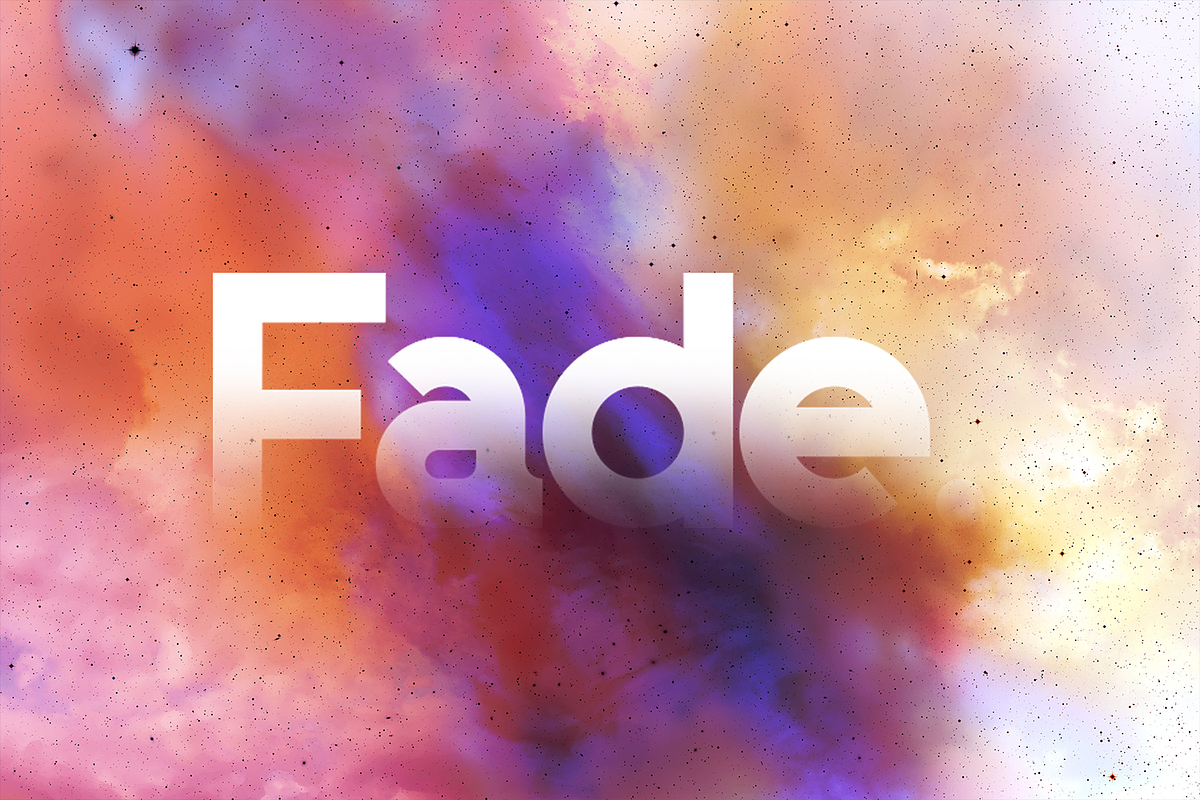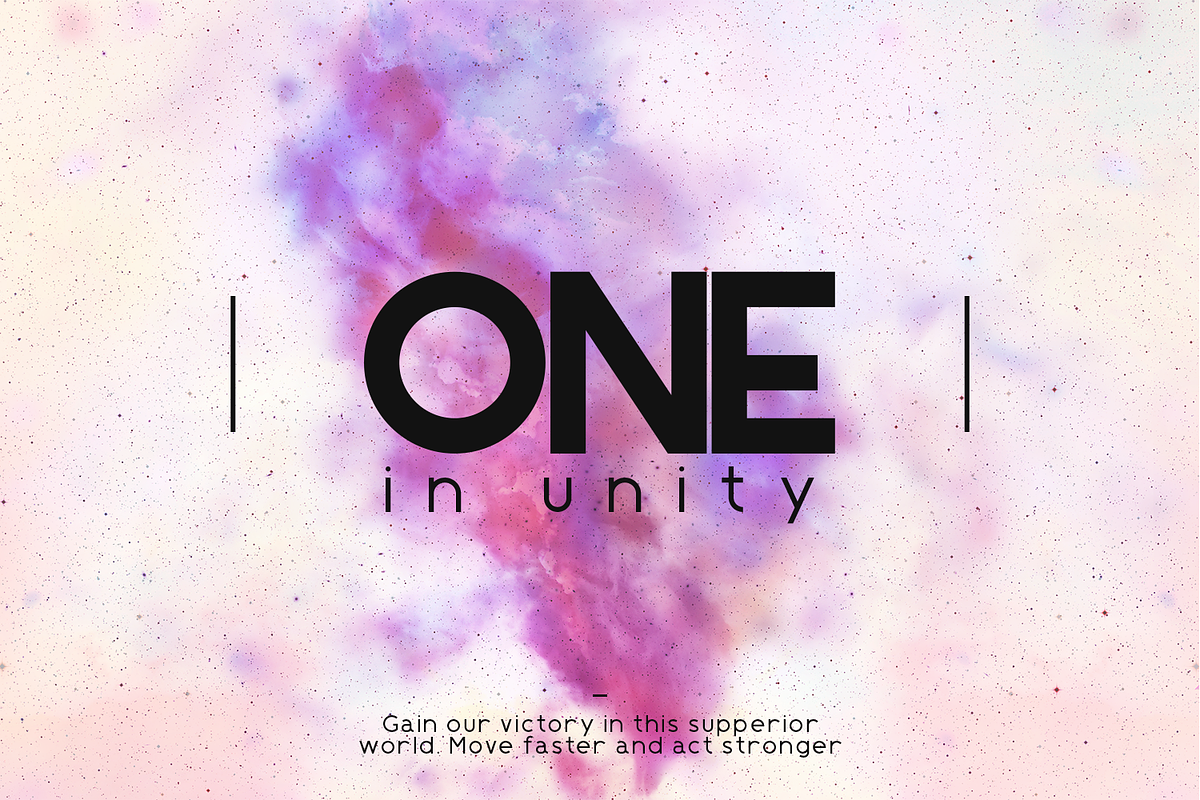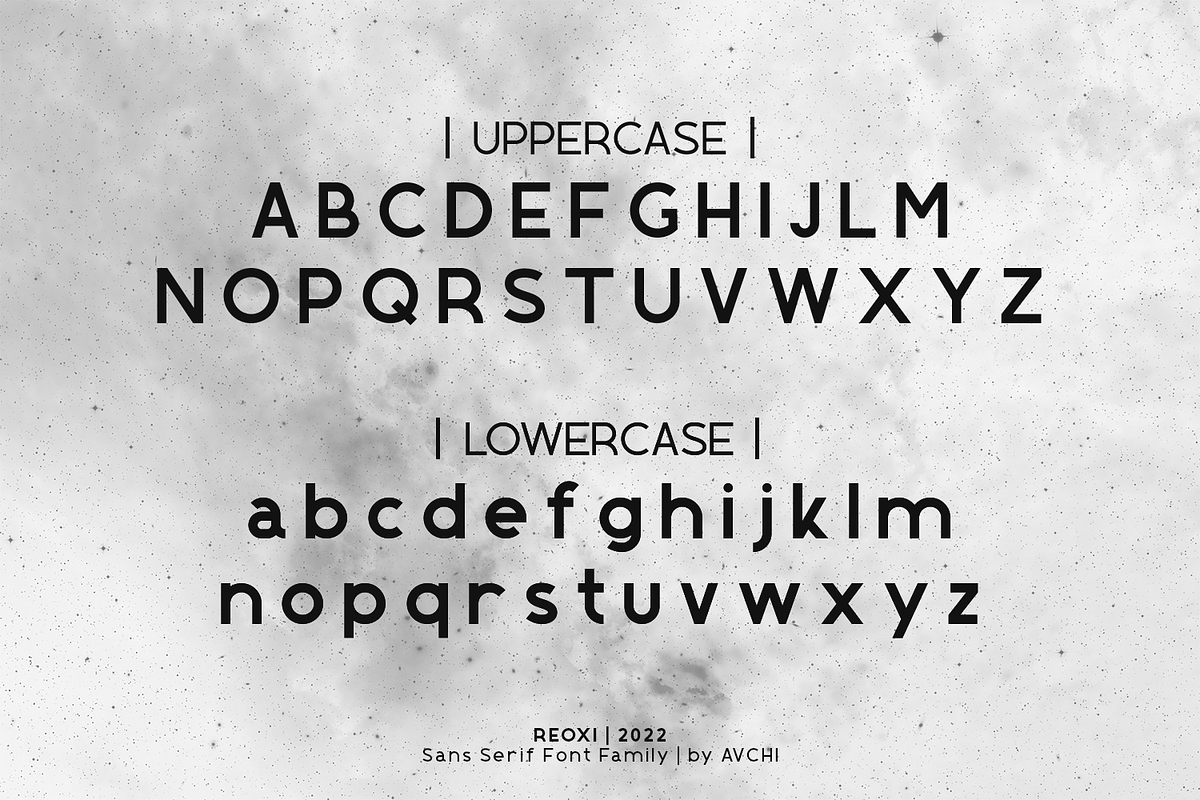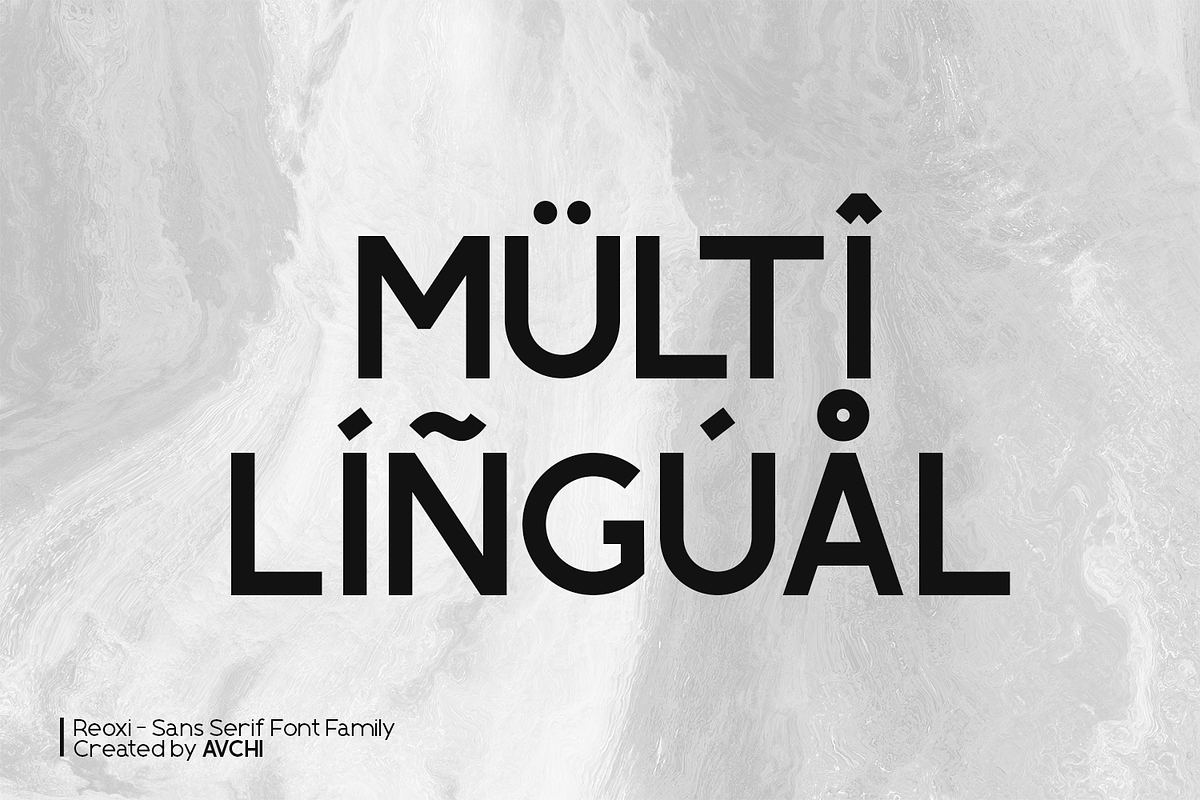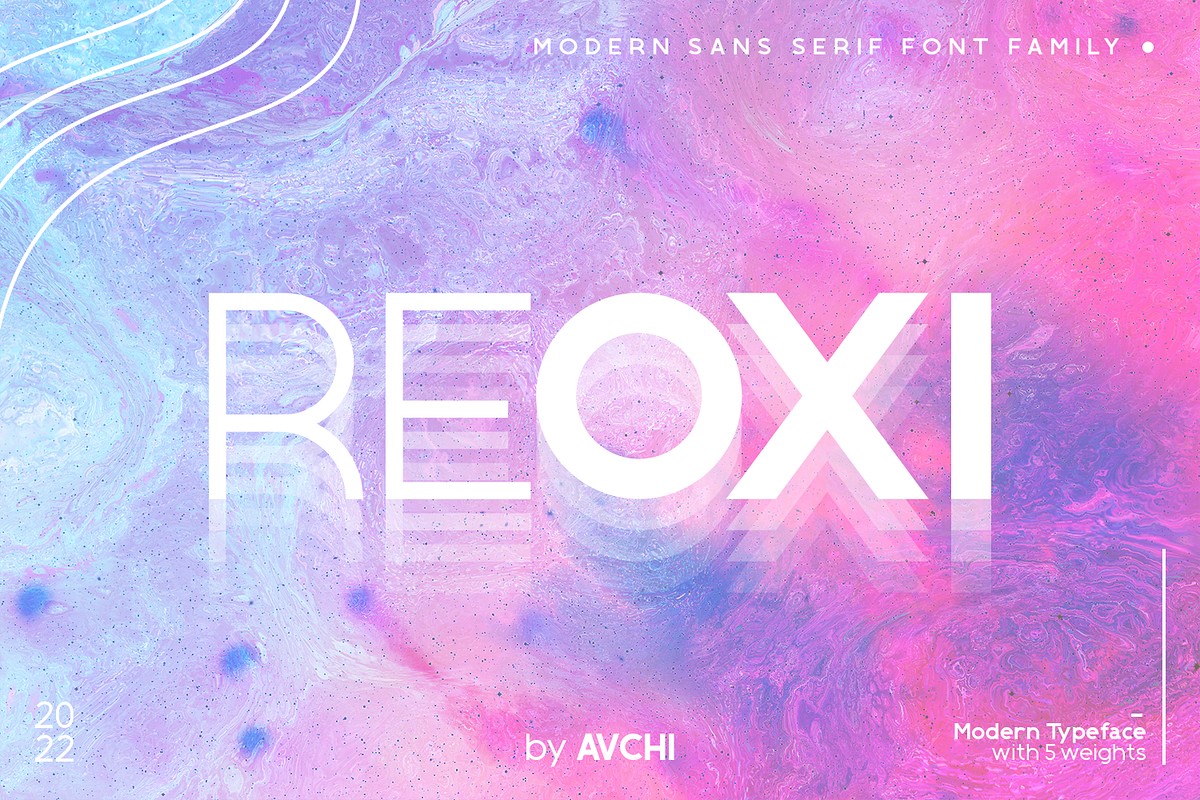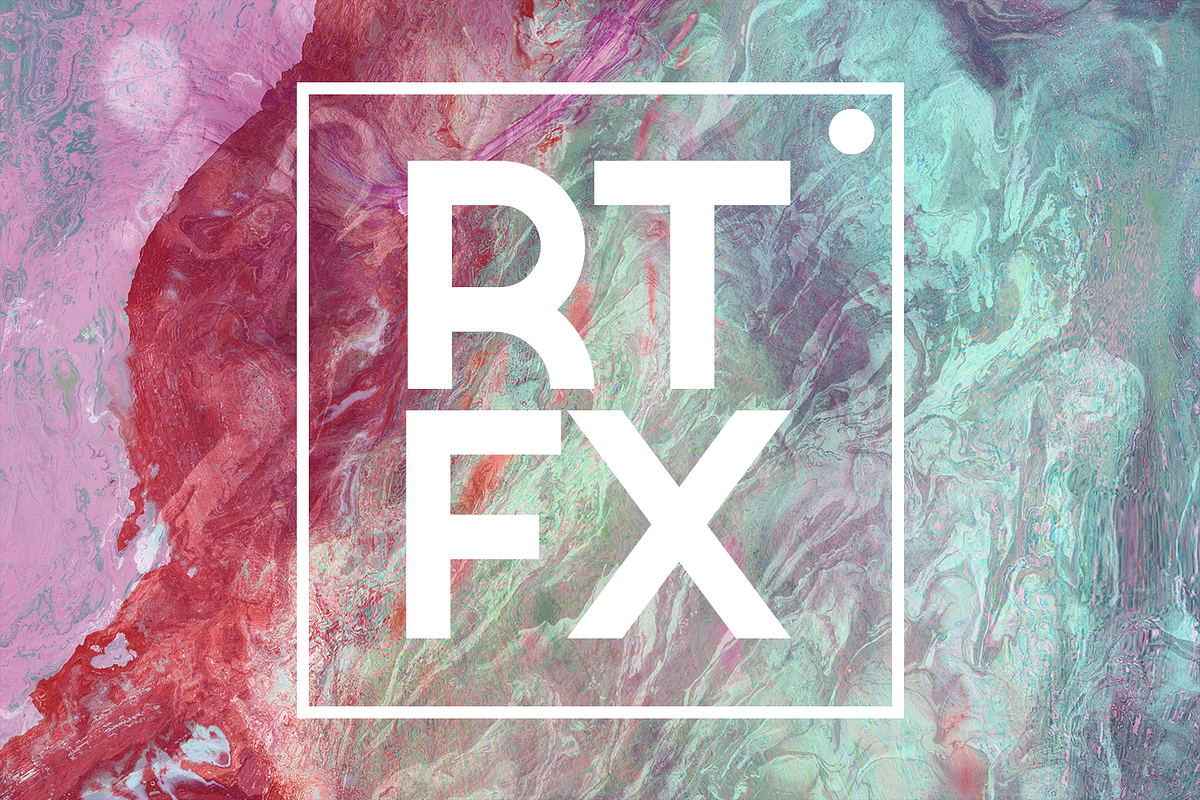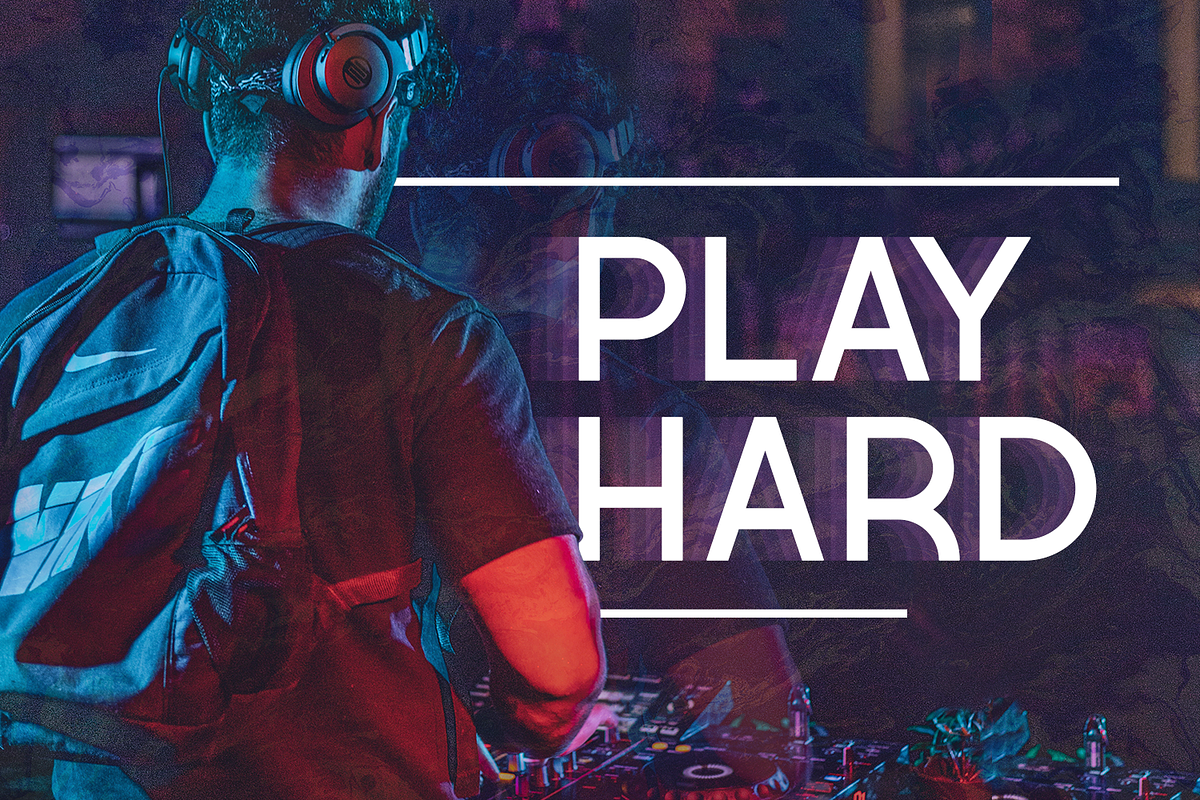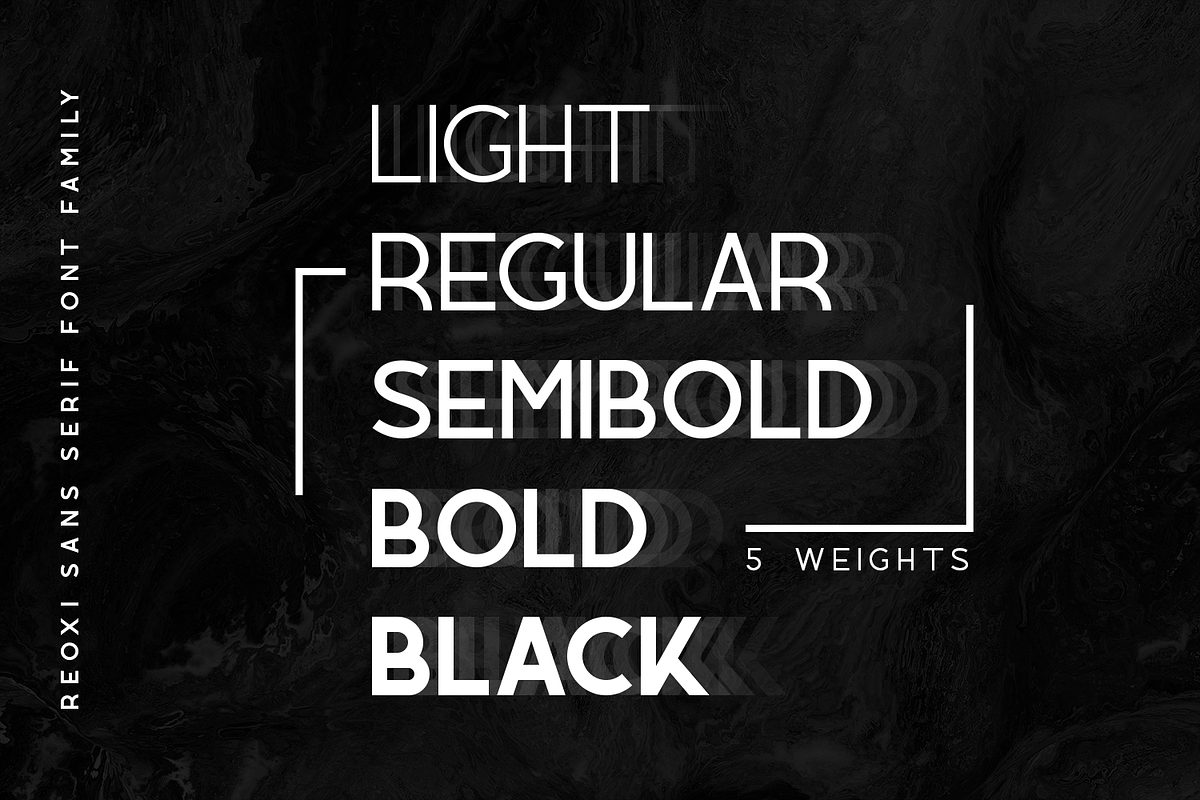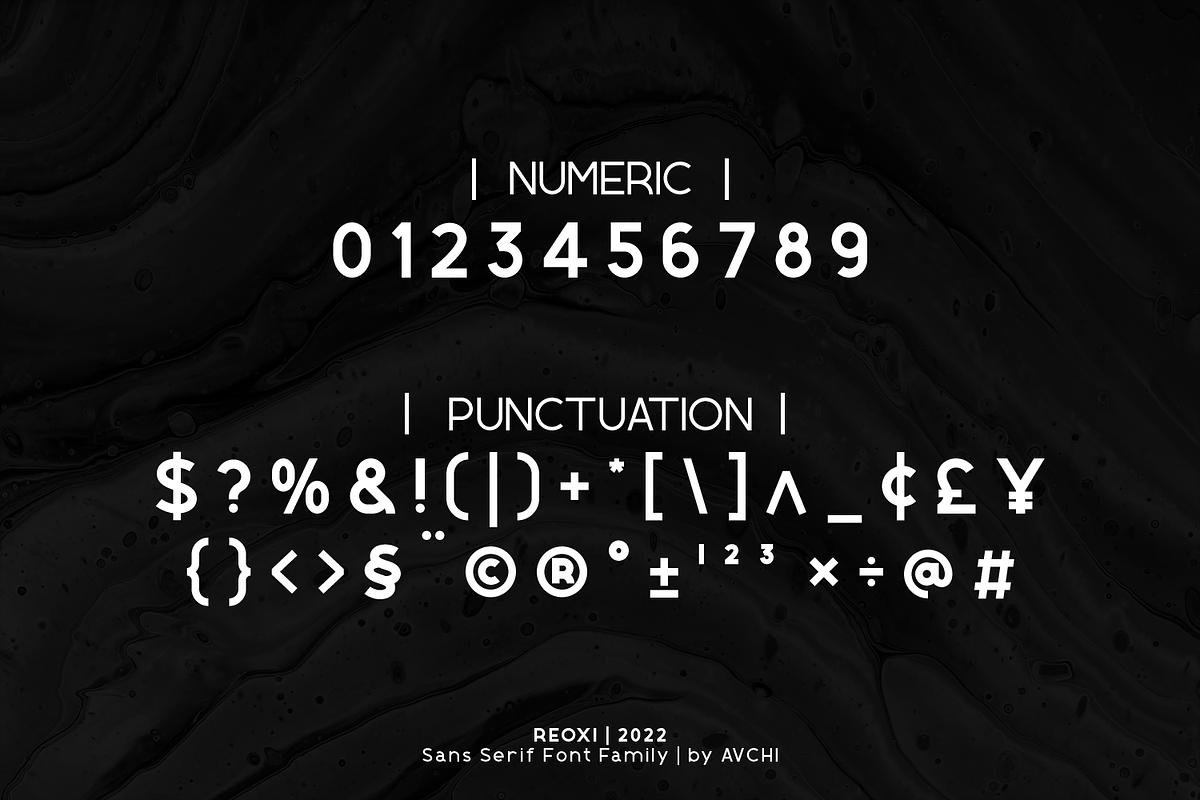
Reoxi | Modern Sans Serif
REOXI is a modern sans serif font with 5 weights (light, regular, semibold, bold, and black). Created for modern and minimalist purpose. This file include :